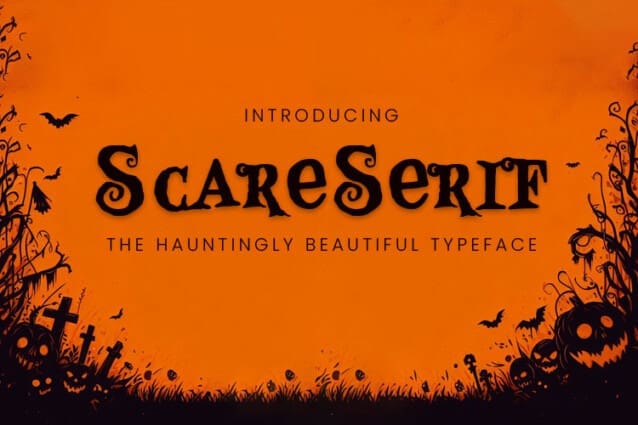
ScareSerif Font
ScareSerif Font is a custom-designed Halloween font brought to you by the team at JustFreeFonts.com. Perfect for spooky invitations, haunted graphics, eerie websites, or any project looking to add a touch of halloween charm.